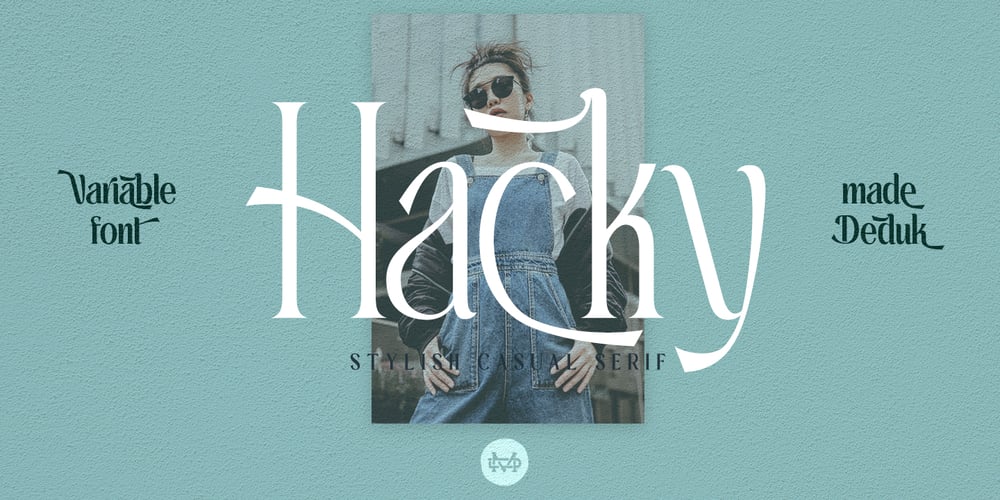
Hacky
Hacky font
Hacky Font Family was designed by madededuk and published by madeDeduk. Hacky contains 18 styles and family package options. Hacky is a stylish luxury serif family. It’s clean and have the smooth angle with 9 variable weight and much alternative inside. Suitable to create any branding, product packaging, invitation, quotes, t-shirt, label, poster, logo etc.Feature UPPERCASE Lowercase Number & Symbol International Glyphs Uppercase Alternative Lowercase Alternative Ligatures If you need anything else just shoot me on email at: dedukvic@gmail.comor find more previews on my Instagram here : https://www.instagram.com/acekelgondolayu/?hl=enHope you enjoy it.